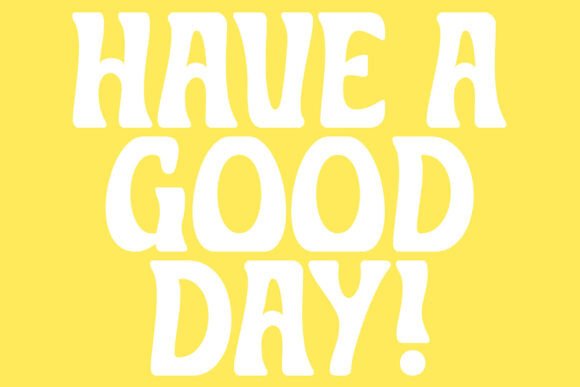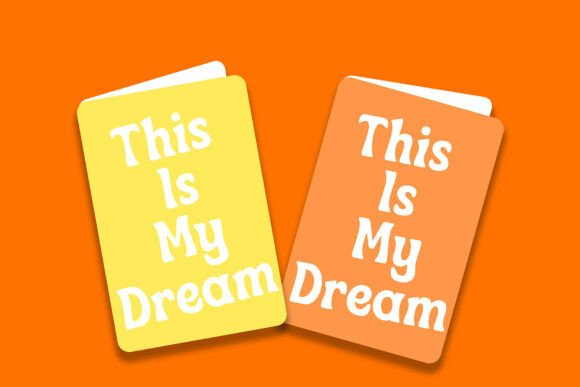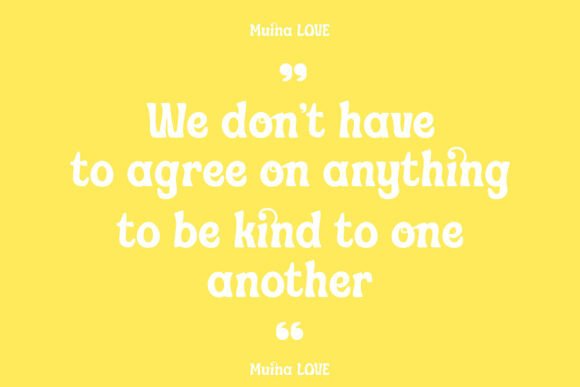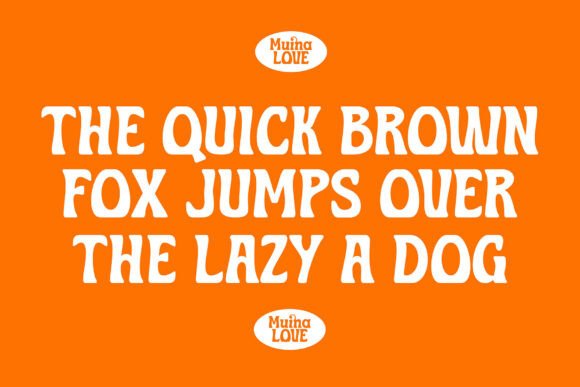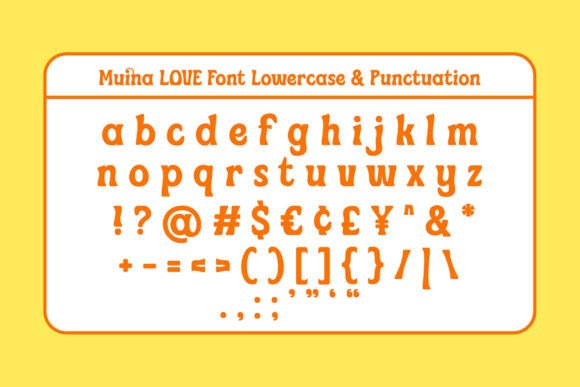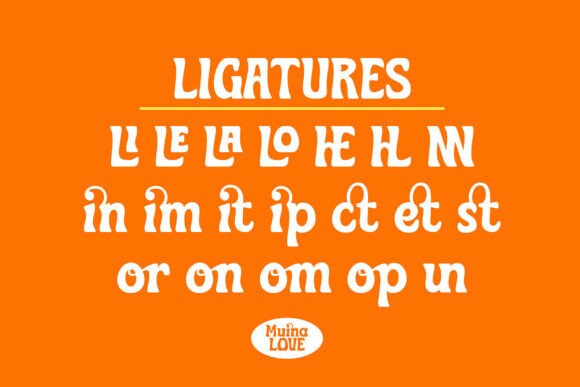
Introduction to Muina Love Font
Have you ever been browsing through vintage design archives, stumbling upon a retro font that instantly sparks your creativity? That’s exactly what happens when you come across the Muina Love Font. Its vibrant and high-impact decorative display style is sure to capture the playful, retro aesthetic you’ve been searching for in your design projects.
As a valuable design resource, Muina Love Font masterfully combines a modern twist with the charm of the 1970s. Its thick, chunky letterforms and soft, rounded terminals exude a friendly and energetic personality, making it perfect for a wide range of creative projects.
Key Features of Muina Love Font
- Unique, hand-drawn style with a mix of elegant and playful elements, perfect for adding a touch of whimsy to your designs.
- Designed with a large character set, including uppercase and lowercase letters, numbers, and punctuation marks.
Honest Review: Muina Love Font
I recently had the chance to work with the Muina Love Font for a creative project, and I must say, it was a great experience. The font is perfect for designing romantic and whimsical themes, making it an excellent choice for any project that requires a touch of love and magic.
- ✨ Wide range of characters and glyphs, making it a great choice for multi-language projects
- ⚠️ Not ideal for formal or corporate designs, as it can come across as too playful
Overall, I’m impressed with the Muina Love Font and would definitely recommend it for designers looking for a high-quality design resource. While it may have some limitations, it’s a great choice for creative projects that require a touch of love and magic.
The Muina Love Font is perfect for wedding invitations, birthday cards, and other creative projects that require a romantic and elegant touch. You can also use it for branding and marketing materials, such as logos and brochures.